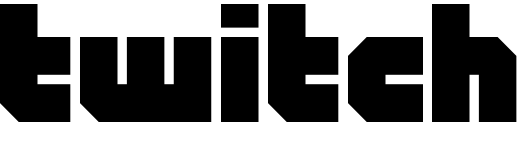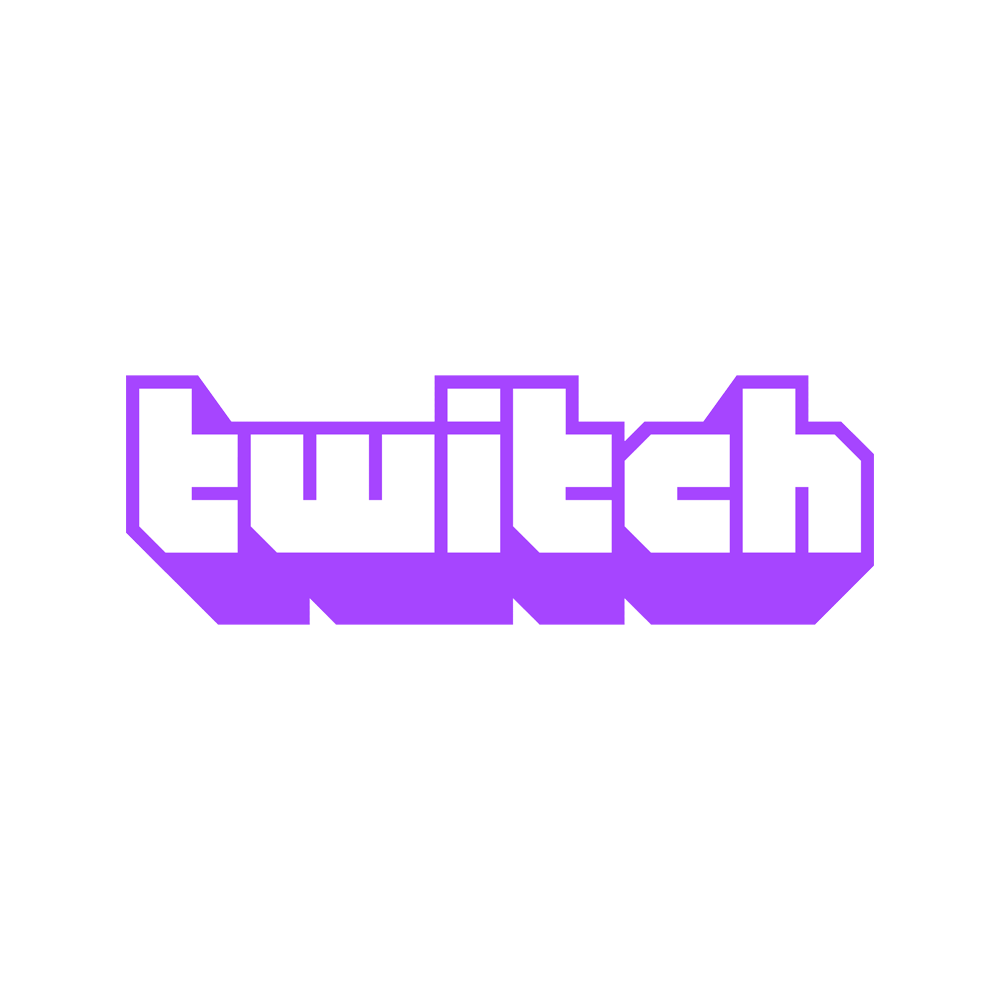
Twitch Logo Font
LogoTwitch is a live streaming platform, predominantly for gaming, owned by Amazon. Users can broadcast content and interact with viewers in real-time.
The Twitch logo was custom made but we found a replica called RO twimch by ripoof. The font is licensed as public domain.